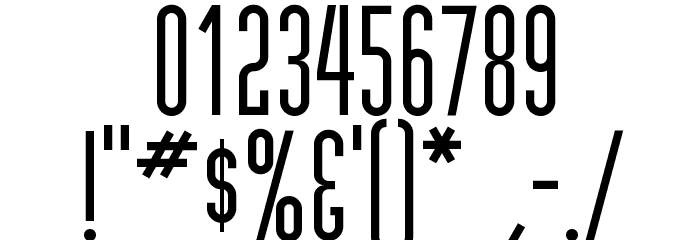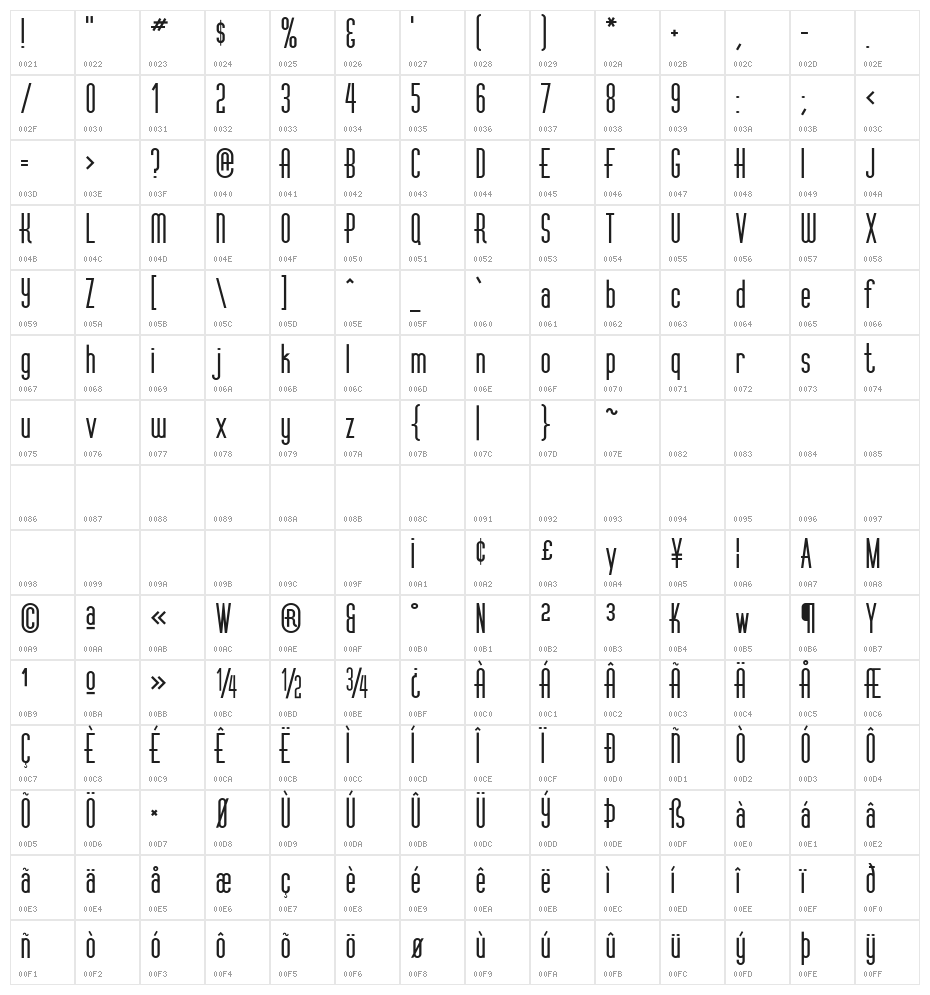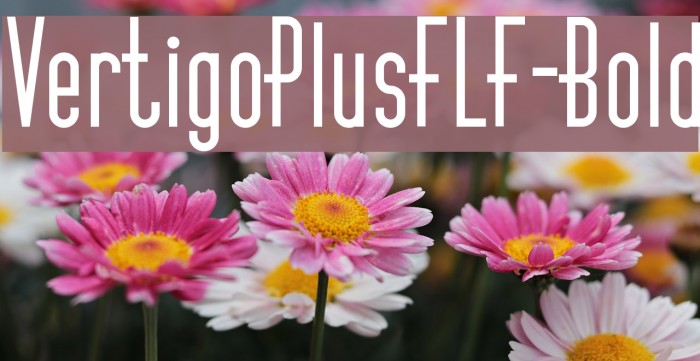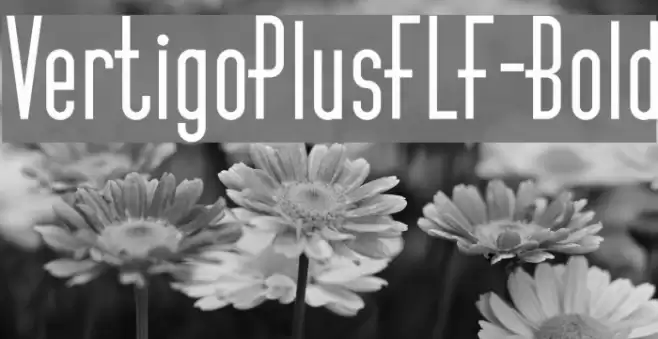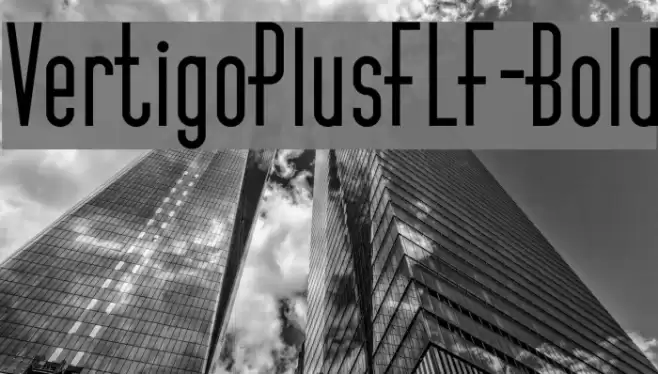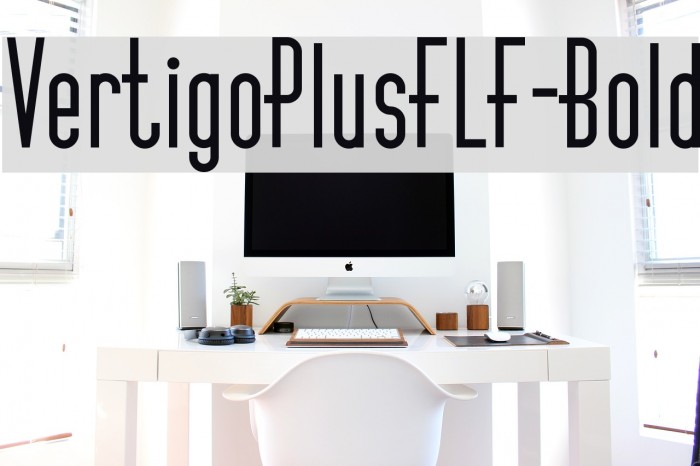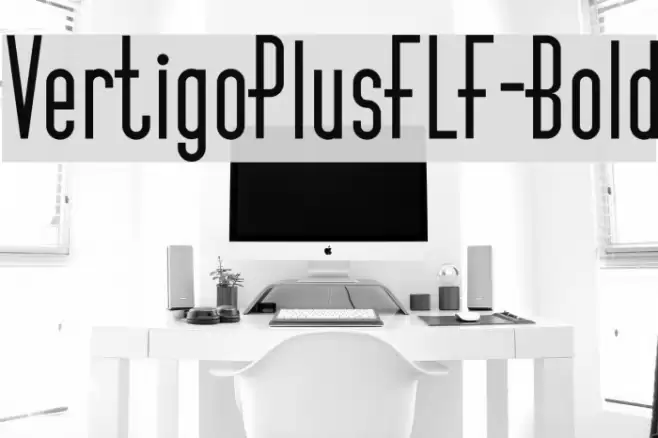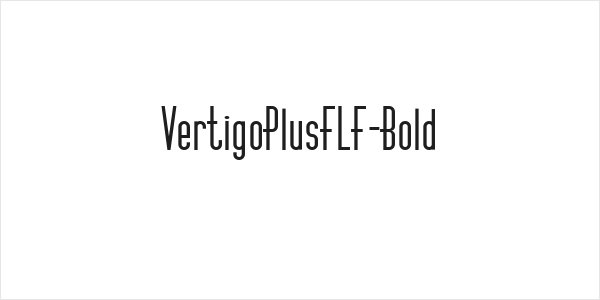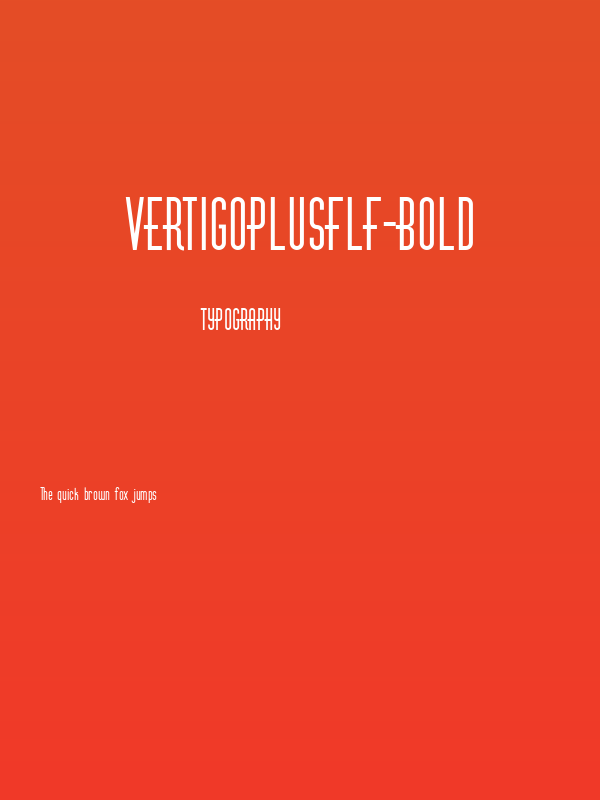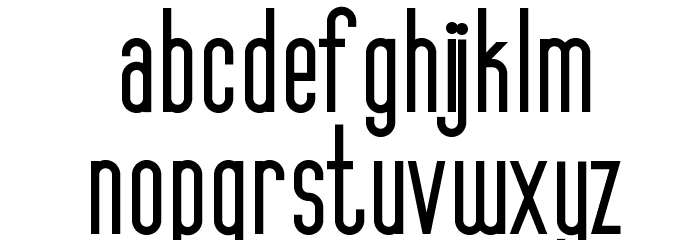
VertigoPlusFLF-Bold Font
VertigoPlusFLF-Bold Description
This font features a tall, narrow design with a modern and sleek appearance. The characters are elongated with consistent stroke widths, giving it a uniform and clean look. The uppercase letters are particularly striking with their vertical emphasis, while the lowercase letters maintain a similar style, ensuring readability. The numerals and special characters follow the same design principles, making them cohesive with the alphabet. This font's geometric structure and minimalistic approach make it suitable for contemporary design projects.